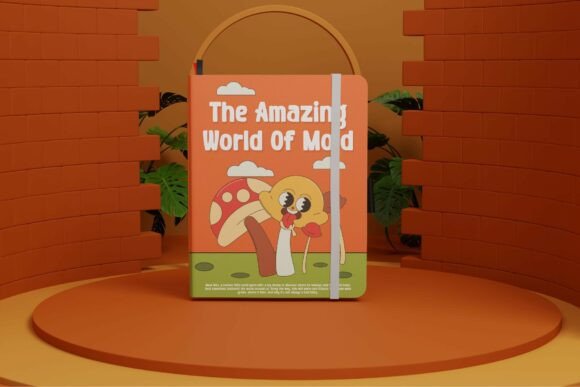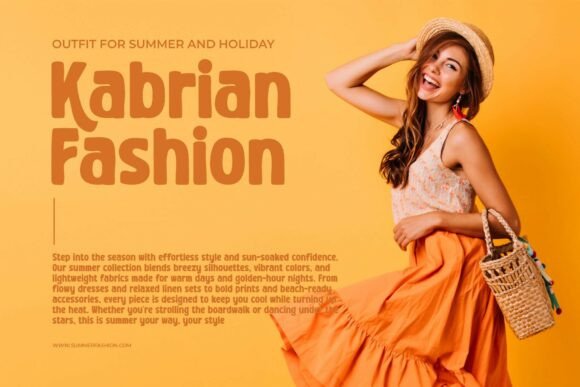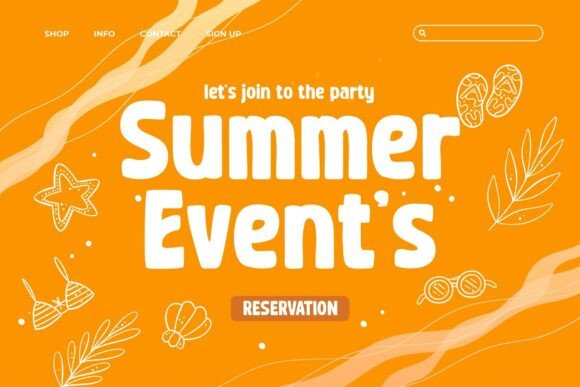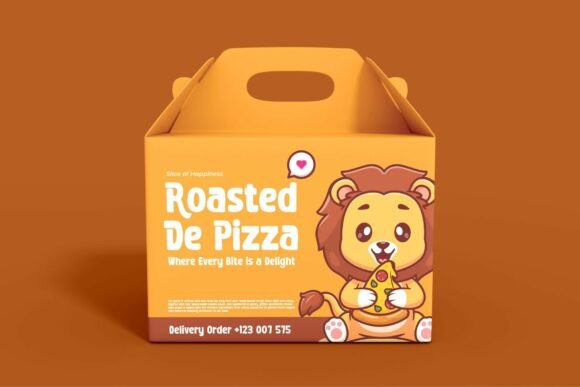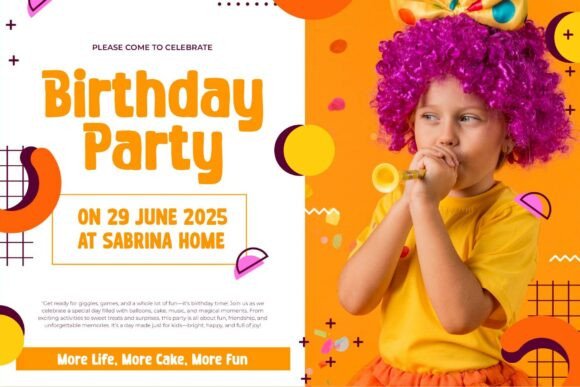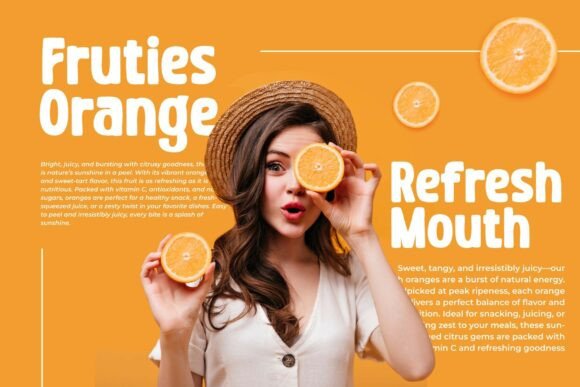
Introduction to Radiant Holidays Font
Radiant Holidays is a bold and sunny display font that radiates fun and relaxation.
With its rounded, slightly quirky letterforms and beachy vibe, itโ€™s perfect for summer campaigns, resort branding, travel brochures, and holiday-themed packaging It brings warmth and joy to every letter, just like a perfect vacation.
Key Features of Radiant Holidays Font
Why Choose Radiant Holidays Font?
Radiant Holidays Font offers exceptional quality and versatility, making it a valuable addition to your design toolkit. Whether you’re creating for personal projects or commercial use, Radiant Holidays Font delivers professional results.